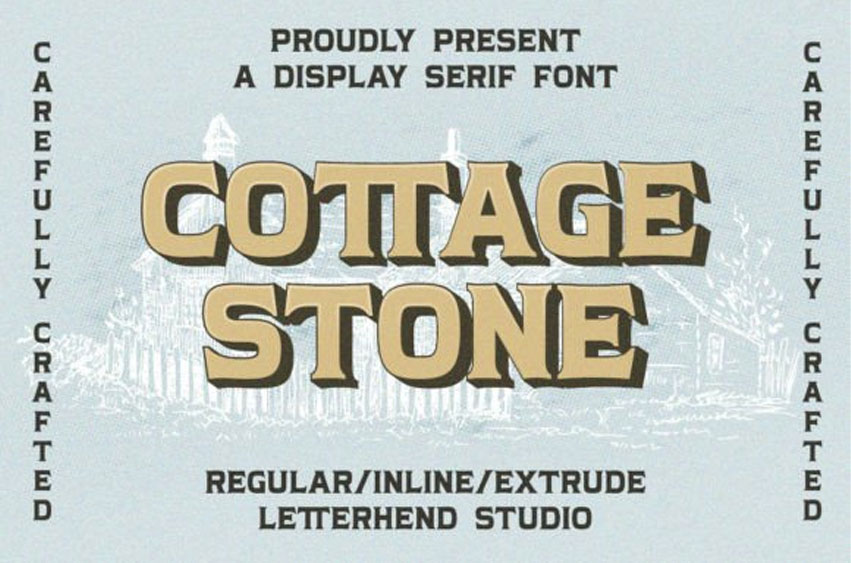
Cottage Stone Font
Cottage Stone Font is a bold all-caps serif font with classic and vintage looks.
This font is perfectly made to make your work stand out, so try it on invitations, labels, logos, magazines, books, greeting/wedding cards, packaging, fashion, makeup, stationery, novels, or advertising purposes.